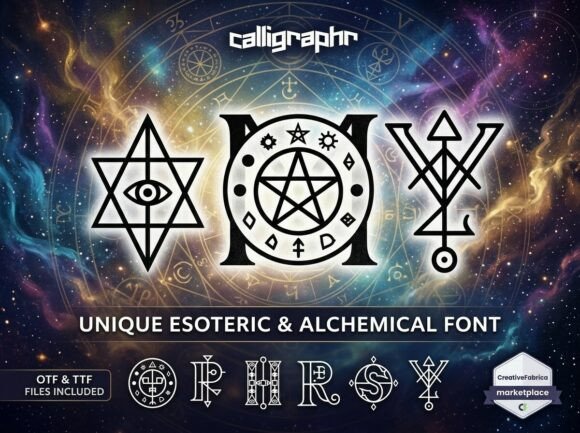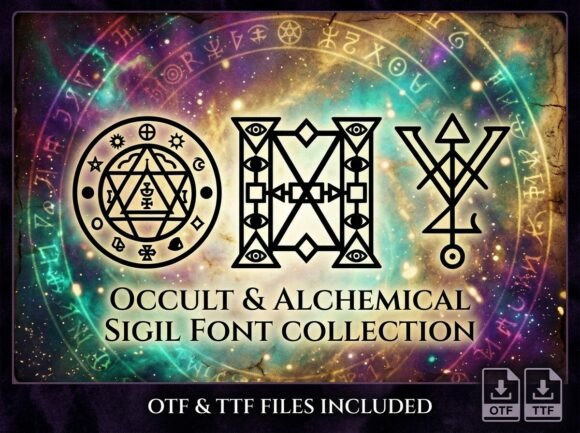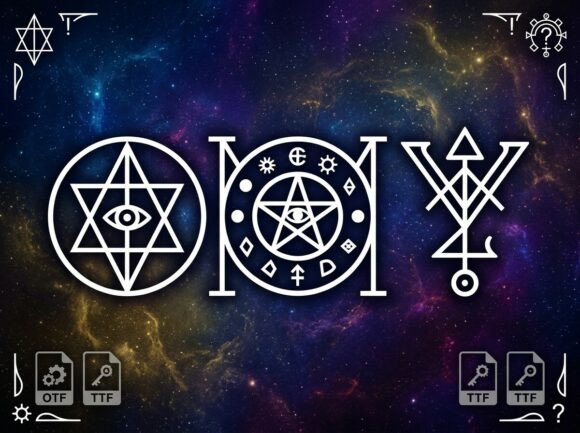
Unlock the Secrets of the Ancients with Amy: A Mysterious Display Font
I’ll never forget the design moment that led me to discover Amy, a font that has since become an indispensable part of my creative toolkit. I was working on a tarot deck design project for a client, and I was struggling to find the right typography to convey the mystical and arcane themes. The client’s request was simple: create a design that would transport their audience to a world of ancient wisdom and mysticism. I scoured the internet for hours, trying out font after font, but nothing seemed quite right. That was until I stumbled upon Amy, a mysterious display font that combines typography with esoteric sigils, alchemical symbols, and sacred geometry.
A Personal Review of Amy
- ✨ Unique and Authentic Look: Amy’s characters are built from genuine esoteric symbols, giving your designs an authentic and mystical feel.
- ✅ Delicate Line Weight: The font’s subtle line weight makes it perfect for designs where you want to convey a sense of mystery without being too overpowering.
- 🔍 OpenType Features: Amy comes with a range of OpenType features, including stylistic alternates and glyphs, which give you plenty of creative freedom.
While Amy is an incredible font, there are a few quirks to be aware of: 🤔
- ⚠️ Limited Use Cases: Due to its unique design, Amy works best for display text and titles. It may not be the best choice for body text or longer paragraphs.
- ⚠️ Glyph Limitations: While Amy comes with a range of glyphs and symbols, you may find that you need to use external resources to access certain characters.
A Practical Guide to Using Amy
The Story Behind Amy
Amy was designed by a team of typographers and designers who are passionate about mysticism and the occult. The font is inspired by ancient esoteric traditions, including alchemy, astrology, and sacred geometry. The designers wanted to create a font that would allow creatives to tap into these mystical themes and create designs that are both beautiful and meaningful.
| Is Amy suitable for body text? | No, Amy is designed for display text and titles. It may not be the best choice for body text or longer paragraphs. |